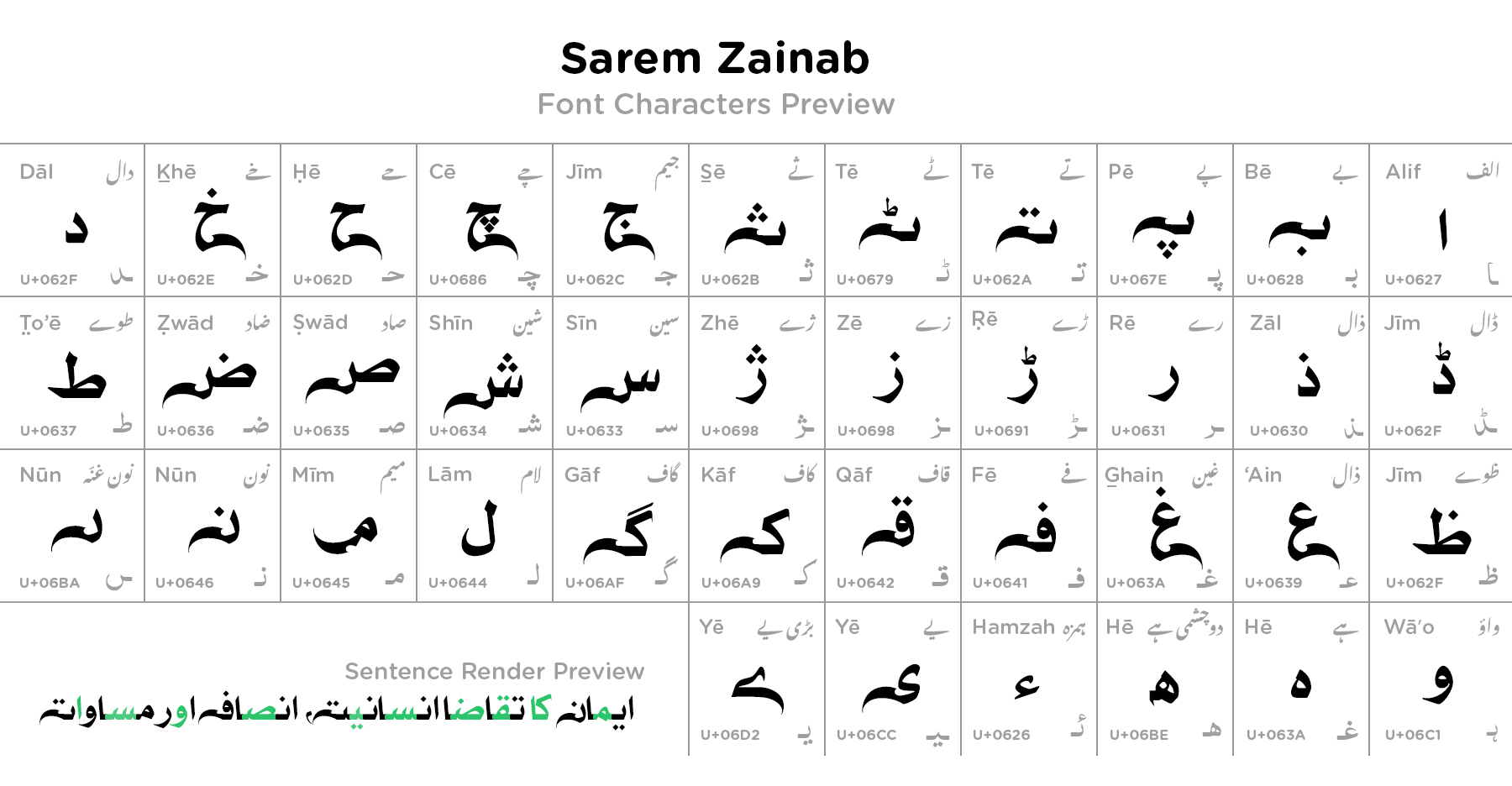
Sarem Zainab is a modern True type Sindhi font created by Sarem Muhammad Bux Kalady. This font's simple, plain letter forms make it easy to read. It adds a sophisticated feel to the text with its flowing, intricate strokes. Sarem Zainab is available in only one weight, limiting its usability. However, with its filled and flowing characters, it offers both functionality and visual appeal. Due to its high readability and flexible nature, it is preferred by graphic designers for many different uses, like posters, logos, attractive headers, and even to display artistic works. Moreover, it is compatible with the latest Unicode and is free of cost.